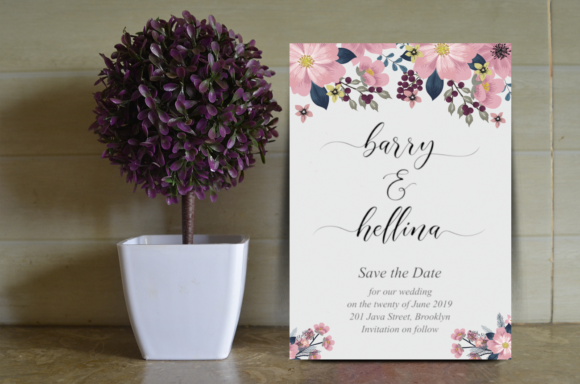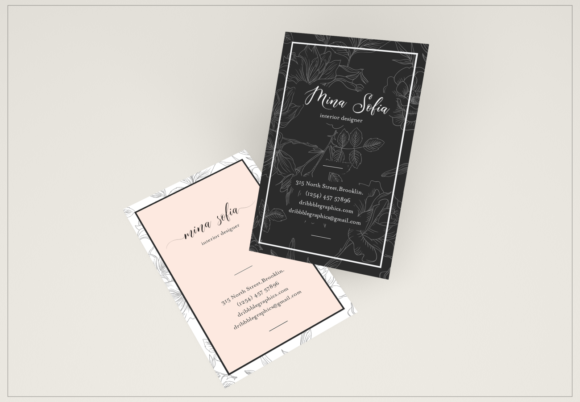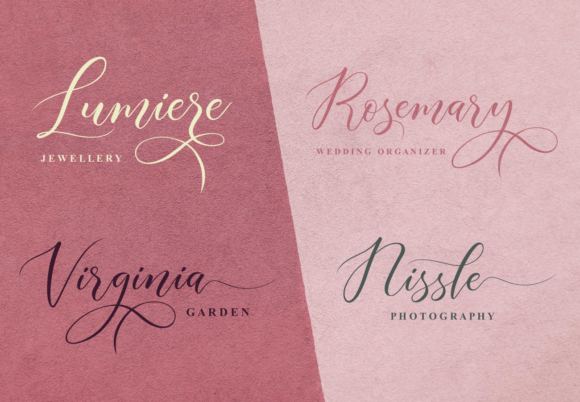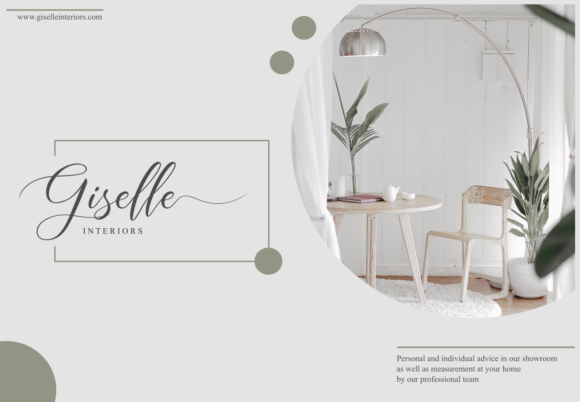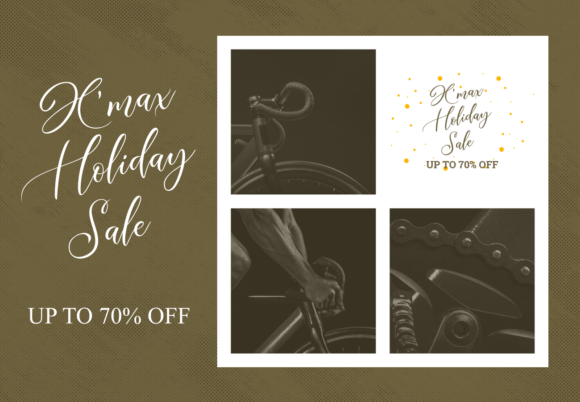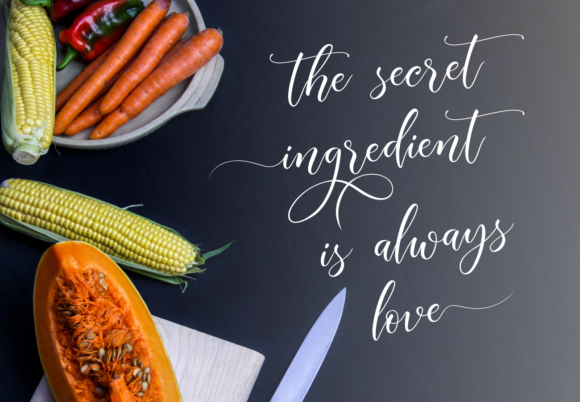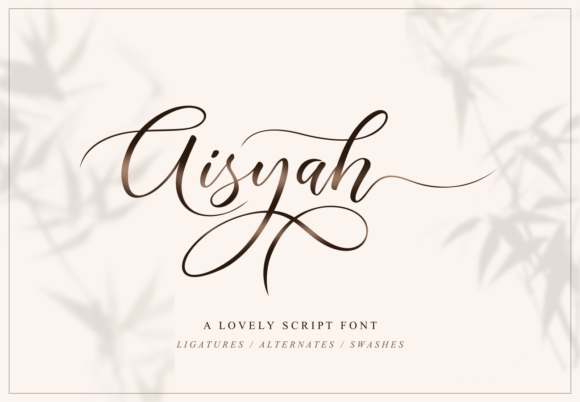
The Aisyah Font: Elevate Your Designs with Timeless Sophistication
I’ll never forget the time I was working on a project for a high-end client, and I was struggling to find the perfect font to match their brand’s elegant aesthetic. I had spent hours scouring the internet, trying out different fonts, but nothing seemed quite right. That’s when I stumbled upon the Aisyah font, and it was love at first sight! ✨ The delicate feel and sophisticated vibe of this contemporary font instantly elevated my design, and I knew I had found the perfect fit.
• ✨ The Aisyah font has an incredibly delicate feel that adds a touch of elegance to any design project.
• ✅ Its timeless sophistication makes it perfect for high-end clients or designs that require a classic look.
• 💫 The font’s versatility allows it to be used for a wide range of design projects, from branding and packaging to wedding invitations and more.
While the Aisyah font is a stunning addition to any design project, there are a few things to keep in mind. 🤔 For example, some of the more intricate details may not render as clearly at smaller font sizes. ⚠️ Additionally, the font’s delicate feel may not be the best fit for designs that require a bold or playful look.
The Story Behind Aisyah
The Aisyah font was designed by a team of typographers who wanted to create a font that embodied the perfect balance of elegance and sophistication. Inspired by traditional calligraphy and modern design trends, the Aisyah font is the result of meticulous craftsmanship and attention to detail. 💫
Font Name Aisyah Font
Author Ghuroba Studio
Q: What is the Aisyah font best suited for? A: The Aisyah font is perfect for designs that require a timeless and sophisticated look, such as high-end branding, wedding invitations, and luxury packaging.
Q: Is the Aisyah font available in different weights or styles? A: Yes, the Aisyah font comes in a range of weights and styles, allowing you to choose the perfect variation for your design project.